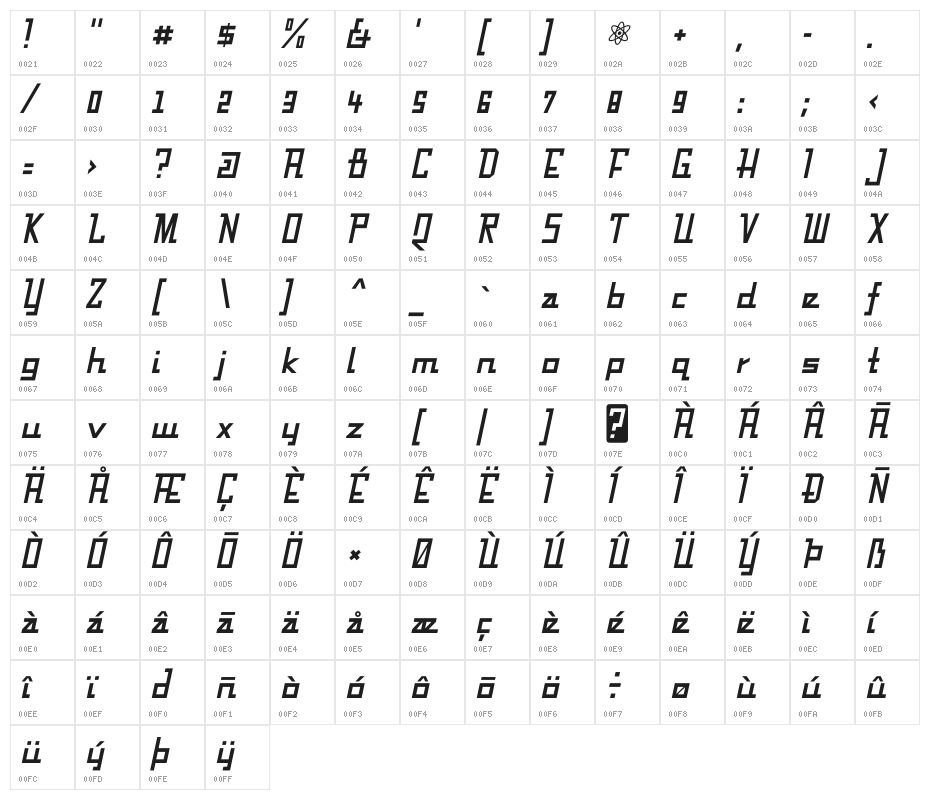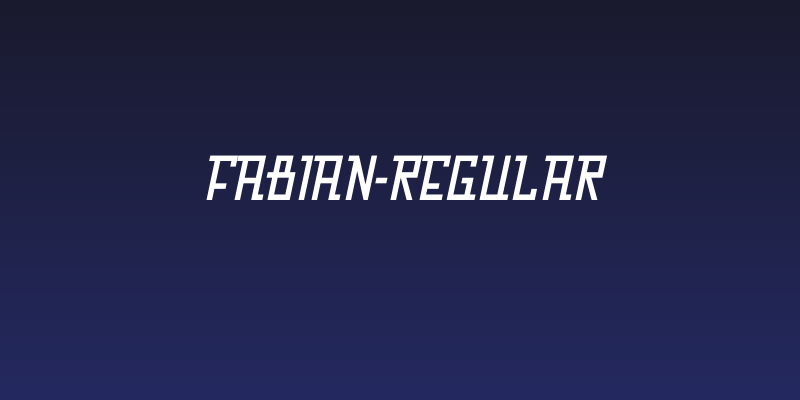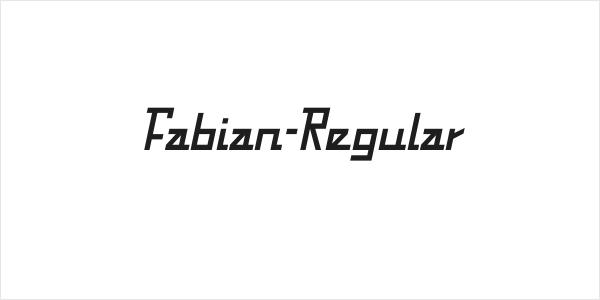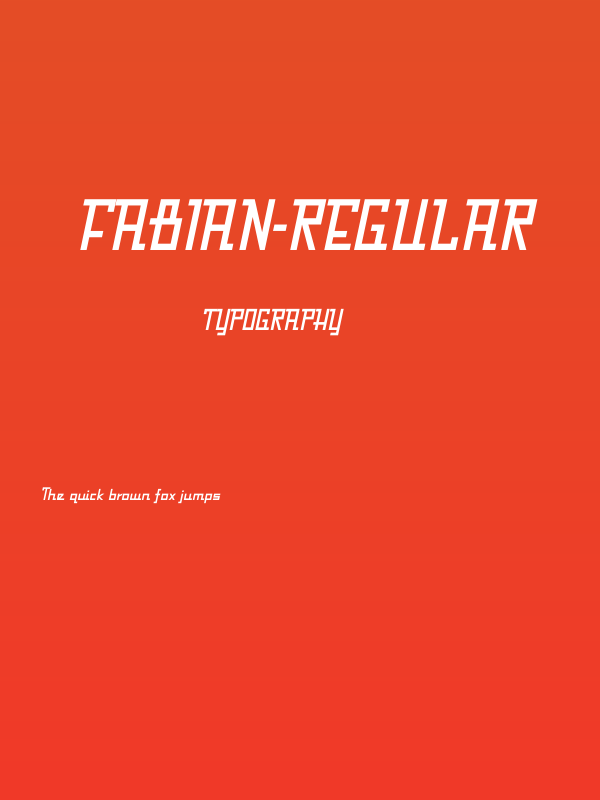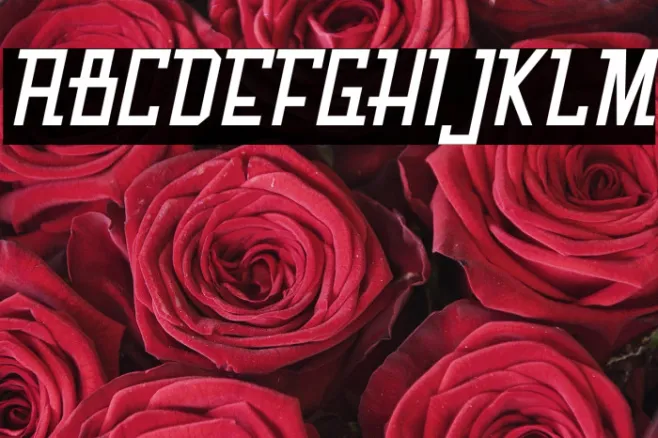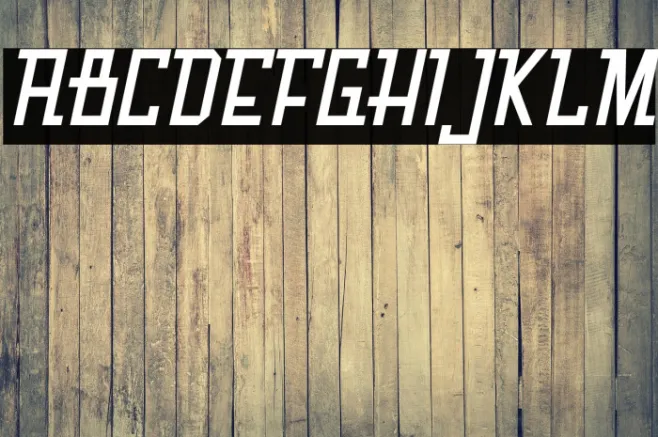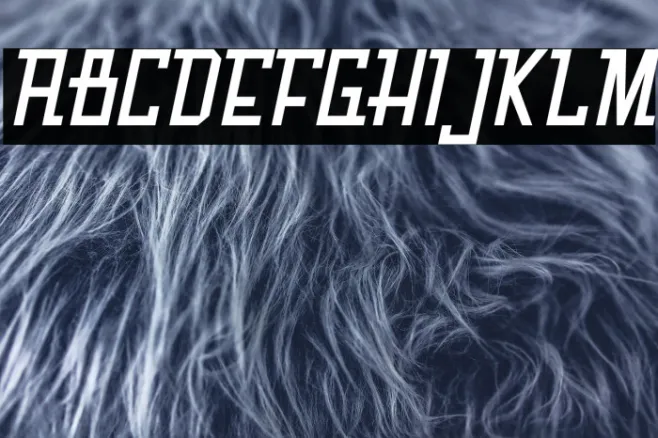
Fabian-Regular Font
Fabian-Regular Description
This font features a modern and angular design with a strong geometric influence. The characters are slightly slanted, giving a dynamic and forward-moving appearance. The uppercase letters are bold and prominent, while the lowercase letters maintain a consistent style with a slightly more compact form. The numerals are distinct and align well with the overall aesthetic, ensuring readability. Special characters are uniquely styled, adding to the font's versatility. The sharp edges and clean lines make it suitable for contemporary design projects.
| Proposed Projects | Ideal for branding, advertising, and digital media projects that require a modern and bold aesthetic. |